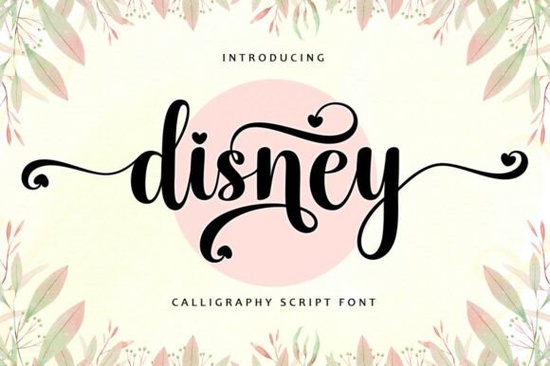
Designers, crafters, and small business owners looking for a unique way to add a touch of magic to their projects might find the Disney Font to be a perfect fit. This display typeface brings a heartwarming and romantic feel to any design, making it ideal for creative work that needs a personal or whimsical touch. Whether you're working on Valentine’s Day cards, handmade soap labels, or social media graphics, the Disney Font offers a fresh and elegant look that stands out.
The Disney Font is a high-contrast script with thick brush strokes and delicate hairline stems. Its sweeping baseline swashes and tiny solid love hearts at the ends of letters and tittle dots make it visually striking. This combination of bold and refined elements makes it suitable for both playful and sophisticated designs. It bridges the gap between fairy tale charm and modern branding, offering versatility across different creative applications.
What Makes the Disney Font Stand Out?
The Disney Font is more than just a pretty design it’s crafted with attention to detail that enhances readability and visual appeal. Its thick strokes provide a strong presence, while the thin lines add an air of elegance. The inclusion of small love hearts at key points in the typography gives it a subtle yet unmistakable romantic vibe. This balance of contrast and style makes it a go-to choice for those who want to convey emotion through their designs.
For users who enjoy experimenting with different fonts, the Disney Font pairs well with other script styles. If you’re looking for something similar, you might explore the Nougat Dreams Font, which offers a soft and flowing aesthetic. Or, if you prefer a more structured yet expressive style, the DaddyDays Font could be a great alternative. Each of these fonts has its own unique personality, but they all share a common goal: to bring creativity to life through typography.
Best Uses for the Disney Font
This font shines in projects that require a personal or emotional touch. For example, it’s excellent for custom Valentine’s Day stationery, where the romantic feel of the font can enhance the message. It also works well for handmade soap labels, adding a touch of charm to products that are meant to be both functional and beautiful. Nursery name prints and boutique confectionery wrappers benefit from the font’s elegant yet playful style, making it a versatile choice for small businesses and independent creators.
If you're designing social media content that needs to stand out, the Disney Font can help create eye-catching quotes. Its bold and expressive nature makes it ideal for messages that aim to inspire or connect with an audience. Whether you're promoting a product, sharing a message, or simply adding flair to your posts, this font can help you express your ideas with style.
For more inspiration, you can visit Creative Fabrica and search for the Disney Font directly. Disney Font is available for purchase and can be used in a wide range of creative projects. Whether you're working on a personal hobby or a commercial design, this font offers a unique and appealing option that can elevate your work.
If you're new to using script fonts, consider starting with a few basic projects to get comfortable with how the Disney Font looks in different contexts. Experimenting with spacing, color, and layout can help you discover the best ways to use it. As you become more familiar with the font, you’ll be able to incorporate it into more complex designs with confidence.
Remember, the goal of any font is to support the message or purpose of your design. The Disney Font does this by adding a sense of warmth and creativity that can resonate with your audience. With the right approach, it can become a valuable tool in your design toolkit.
Before finalizing your project, take a moment to review how the Disney Font looks in different sizes and formats. Testing it in real-world scenarios can help you identify any adjustments needed to ensure it meets your expectations. This simple step can make a big difference in the overall quality of your work.
Whether you're creating for yourself or for others, the Disney Font offers a unique way to express creativity and emotion. Its blend of elegance and whimsy makes it a standout choice for anyone looking to add a special touch to their designs.